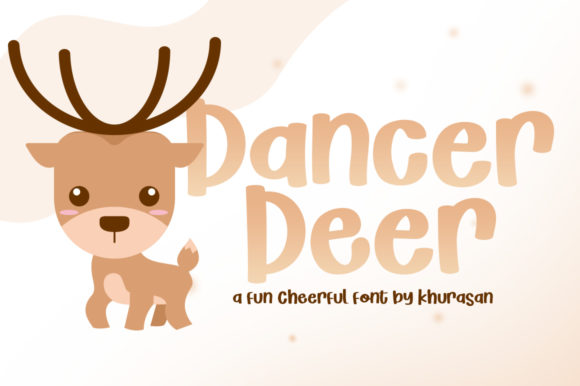
Presenting Dancer Deer Font, the ultimate Christmas design solution that captures the magic of the holiday season! This whimsical display typeface, crafted by the renowned Khurasan, exudes a joyful and cheerful spirit, transforming your designs into a winter wonderland.
Step into a world of festive typography with Dancer Deer, a font that evokes the charm and wonder of the holiday season. Its playful and eye-catching characters dance across your designs, spreading cheer and delight. Let Dancer Deer be the star of your Christmas cards, posters, invitations, and social media posts, creating an unforgettable impact on your audience.
With Dancer Deer, you'll bring the warmth and merriment of Christmas to life. Its unique letterforms, reminiscent of freshly fallen snow, add a touch of magic to every project. Design stunning holiday-themed logos, website headers, product labels, and packaging that radiates warmth and cheer.
Dancer Deer's versatility extends beyond Christmas designs. Its charming personality and playful style make it an excellent choice for a wide range of creative projects. It adds a touch of whimsy to children's books, invitations to special events, party flyers, and even branding materials. The possibilities are as limitless as your imagination.
Experience the magic of Dancer Deer Font and elevate your designs to new heights. Its captivating characters and cheerful spirit will transform your projects into works of art, spreading joy and merriment wherever they go. Let Dancer Deer be your creative companion this holiday season and beyond, creating designs that leave a lasting impression.